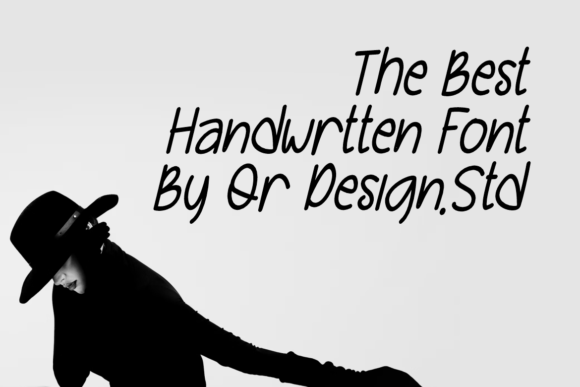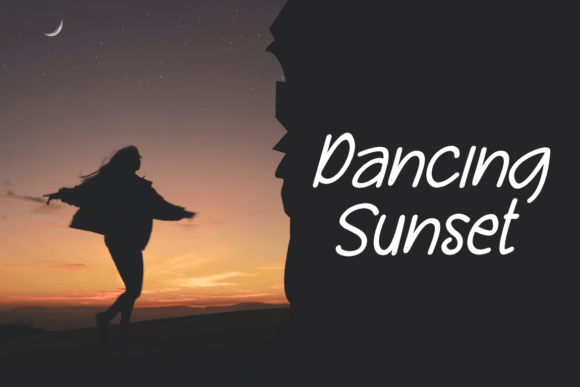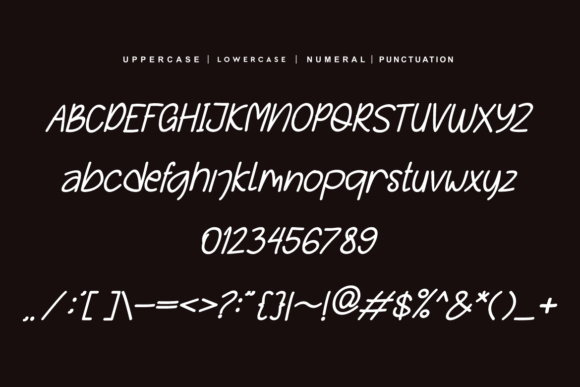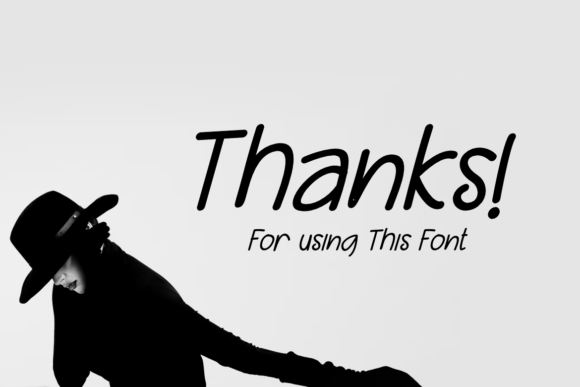
Introduction to Rotuna Font Font
Fonts play a crucial role in design, and the Rotuna Font font is a typeface that brings both character and versatility to any project. Whether you’re working on a branding project, a website, or a print design, the Rotuna Font font offers a unique style that can elevate your work.
Rotuna is a sweet and friendly handwritten font.
Key Features of Rotuna Font Font
Why Choose Rotuna Font Font?
The Rotuna Font font is more than just a typeface – it’s a design tool that helps you communicate your message with style and clarity. Its unique character set and versatile design make it suitable for a wide range of applications, from elegant invitations to bold headlines.
With its carefully crafted letterforms and balanced proportions, the Rotuna Font font ensures readability and visual appeal across all mediums.
What makes Rotuna Font font special?
The Rotuna Font font stands out with its unique design, exceptional readability, and versatility across various design applications.